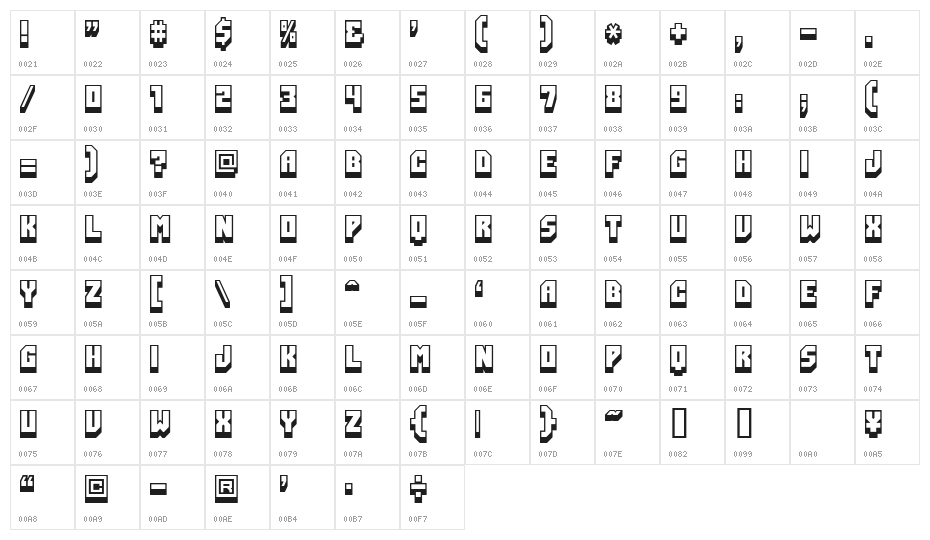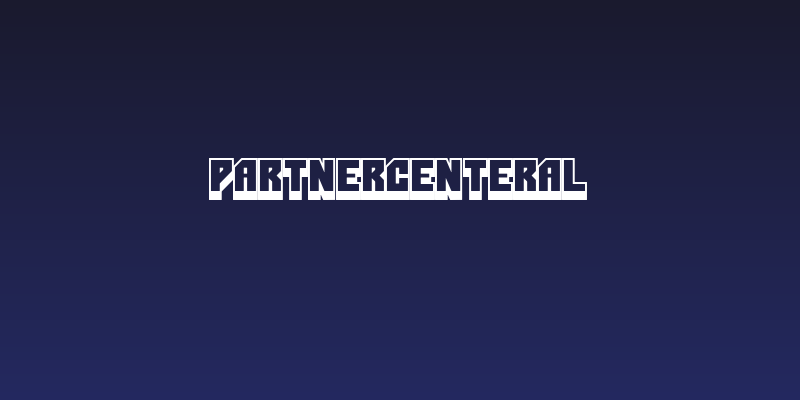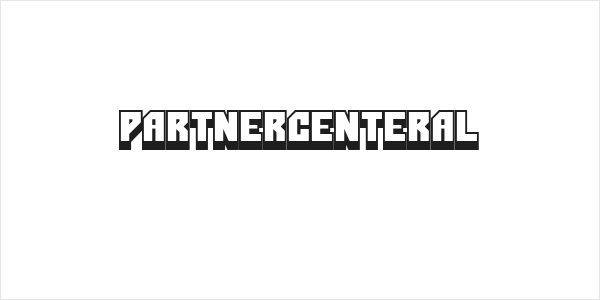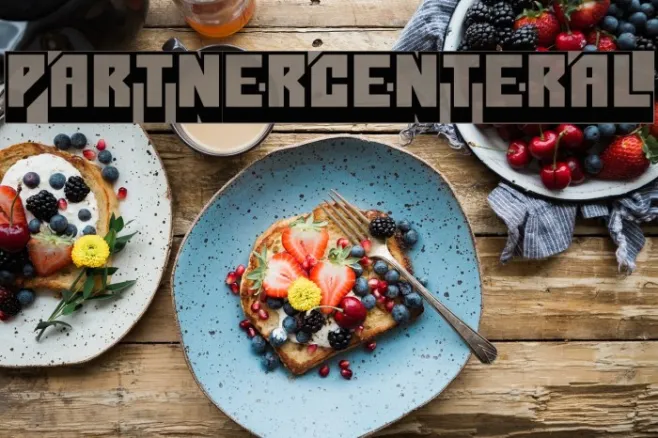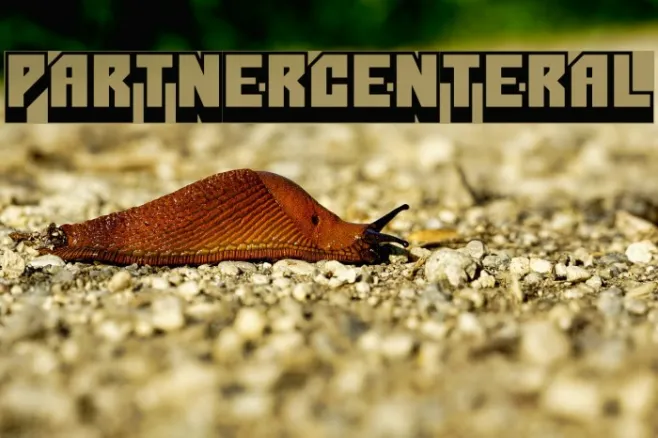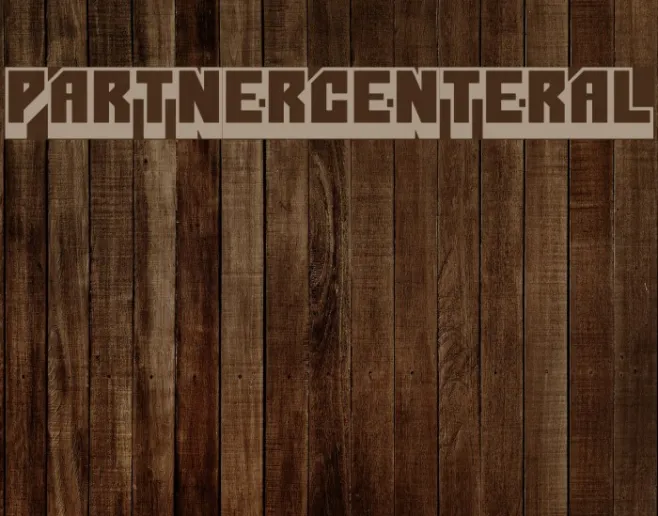
PartnerCenterAL Font
PartnerCenterAL Description
This font features a bold, three-dimensional block style with a strong shadow effect that gives it a striking and impactful appearance. The characters are uppercase and have a geometric, angular design, which adds to the boldness and modernity of the font. The letters are tightly spaced, enhancing the compact and solid look of the text. The numbers and special characters follow the same design principles, ensuring consistency across all elements. This font is ideal for projects that require a strong visual presence and a modern, edgy aesthetic.